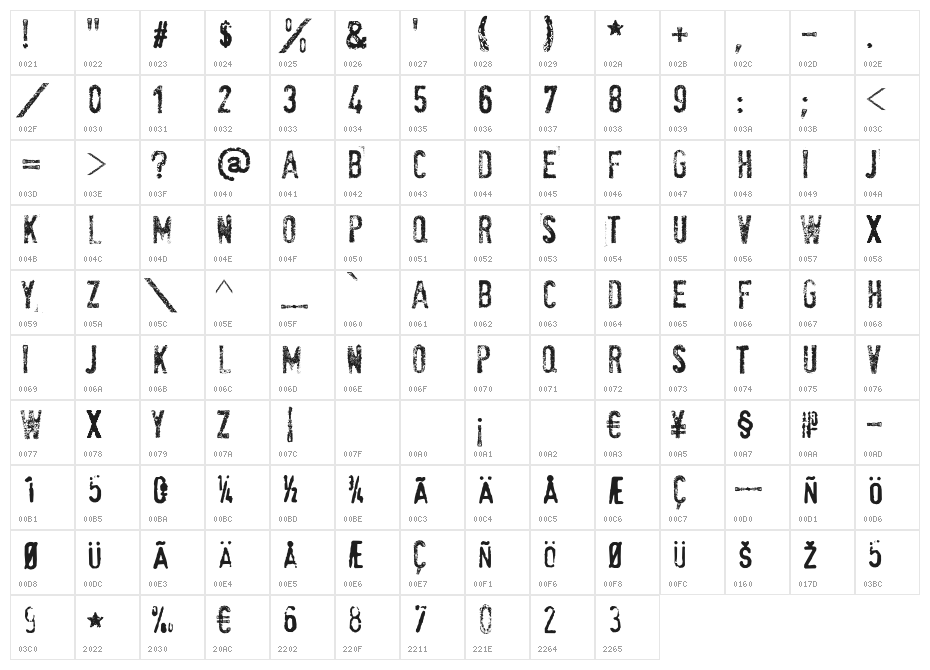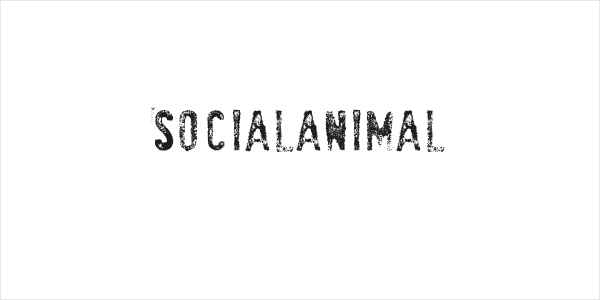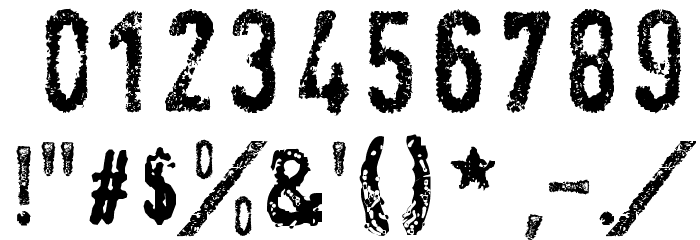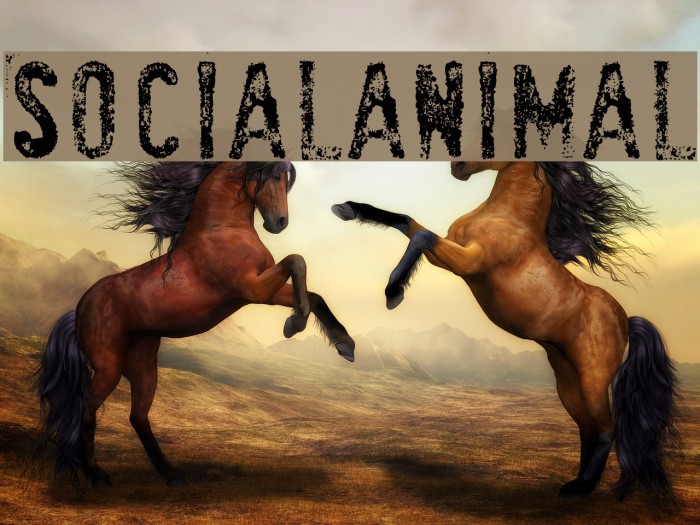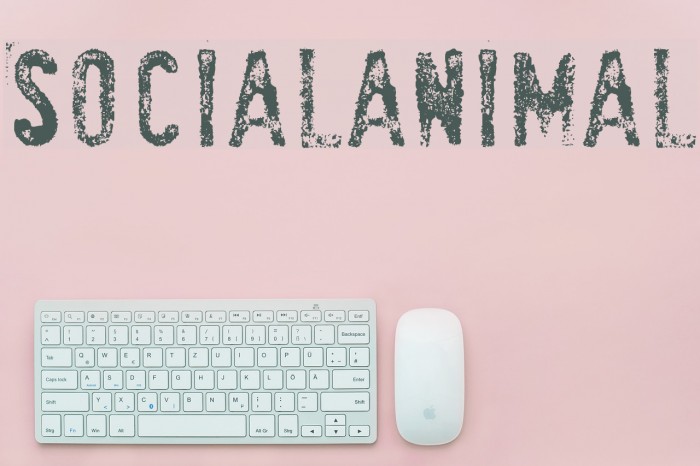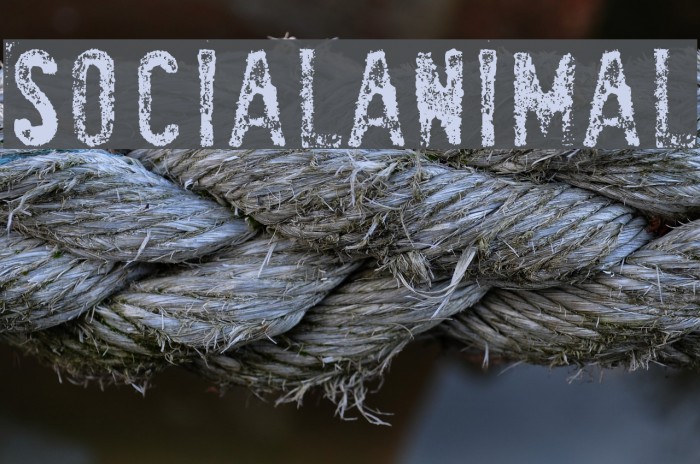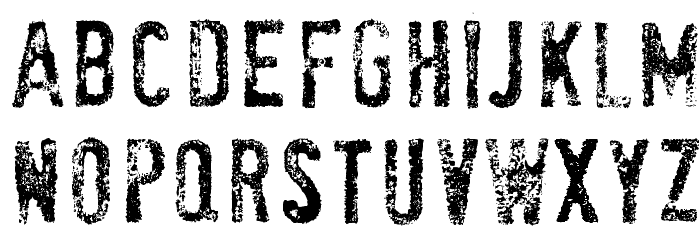
SociaLAnimaL Font
SociaLAnimaL Description
This font features a distressed, grunge style with a textured appearance that mimics the look of worn or aged print. Each character is bold and uppercase, with a rough, uneven edge that adds to its rugged aesthetic. The font maintains a consistent height across all letters, numbers, and symbols, providing a uniform look despite its distressed nature. The texture gives it a tactile feel, making it ideal for designs that require a vintage or industrial touch. The characters are well-spaced, ensuring readability while maintaining the font's unique style.
| Overall Style | Grunge, Vintage |
| Proposed Projects | Ideal for poster designs, album covers, branding for edgy or vintage-themed products, and any project requiring a bold, impactful statement. |